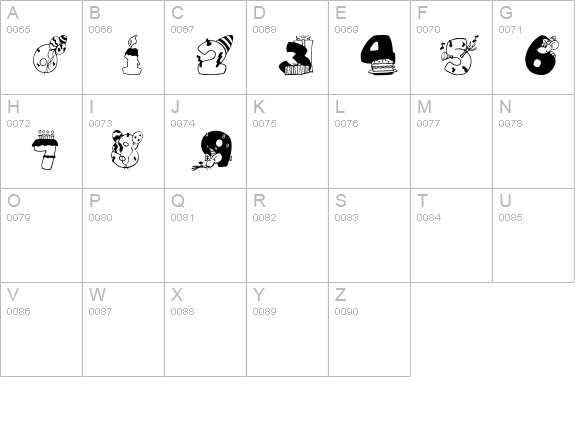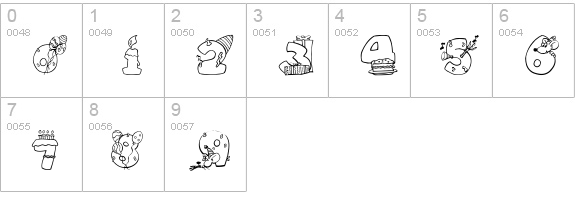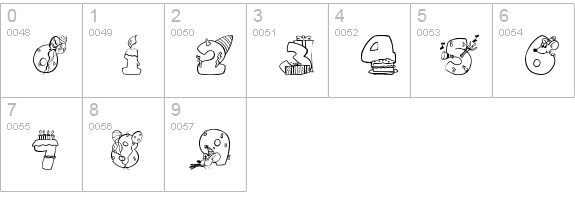
BirthdayDigits Font Details
Introducing BirthdayDigits font, a whimsical and playful typeface perfect for adding a touch of fun to your designs. This unique font features charming numbers with a hand-drawn style, making it ideal for birthday invitations, greeting cards, party decorations, and more. The BirthdayDigits font is sure to bring a cheerful and festive vibe to any project. Best of all, BirthdayDigits font is available for free download at FontsMarket.com. So go ahead and add some extra flair to your designs with this delightful font today!